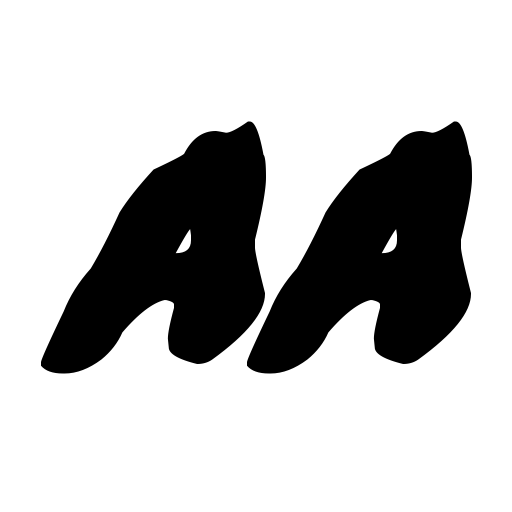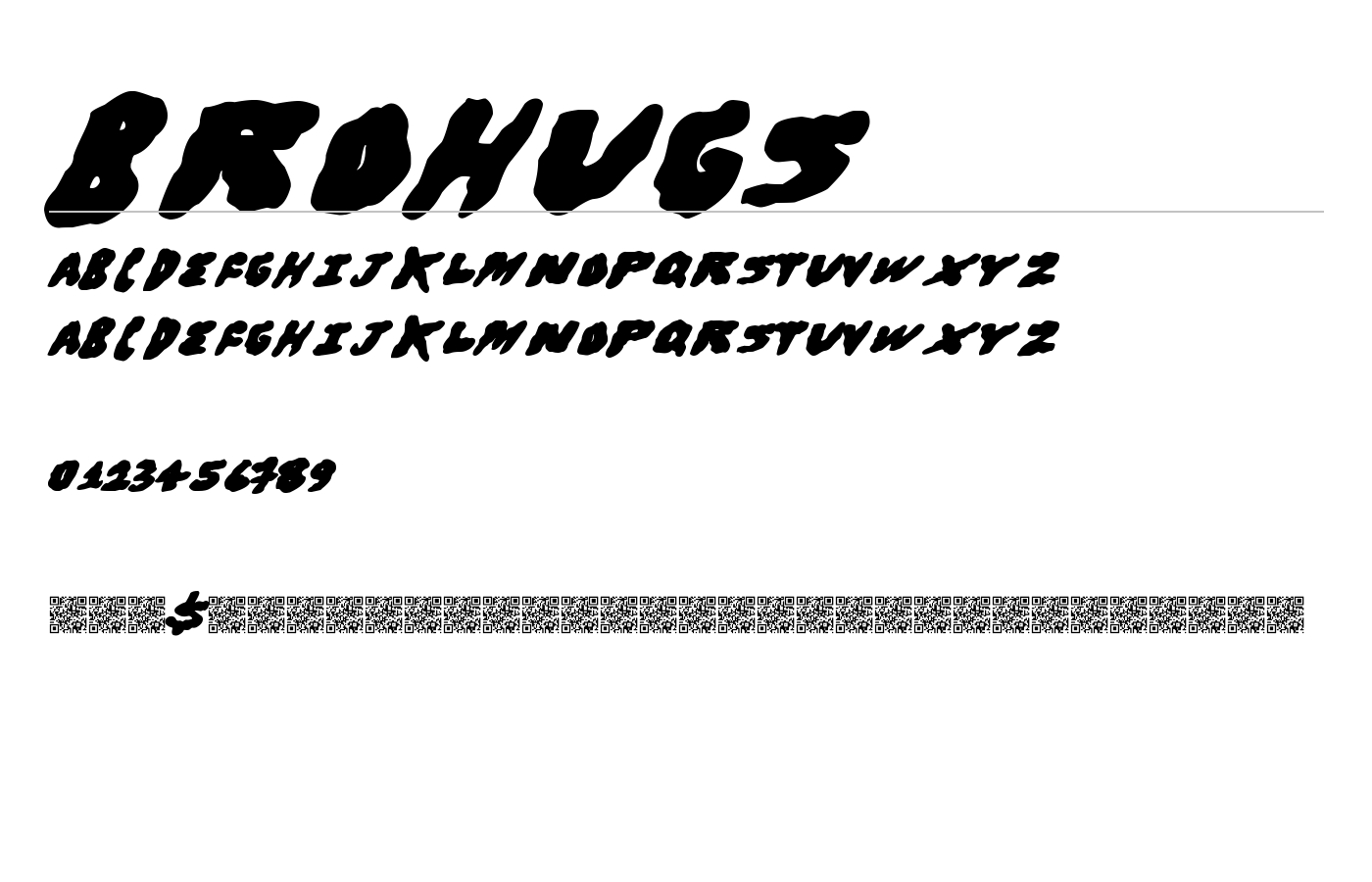
BroHugs is a bold, playful script font with a hand-drawn feel that exudes energy and warmth. Its thick, irregular strokes and slightly condensed letterforms make it perfect for grabbing attention in casual, fun branding, posters, or playful headlines. This font works well where a friendly, informal, and dynamic vibe is desired.
BroHugs Font